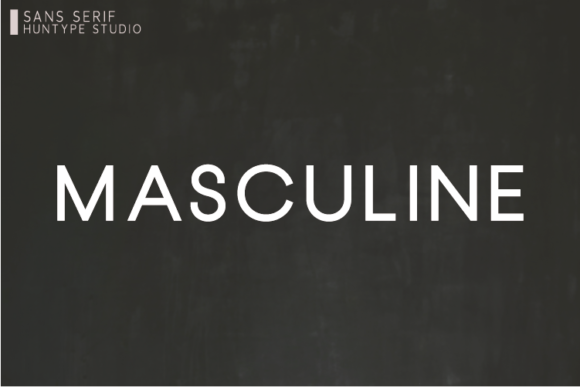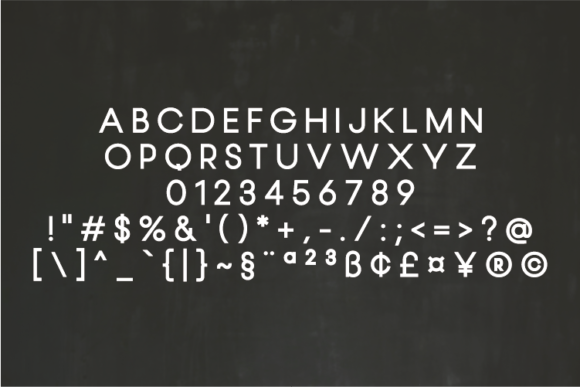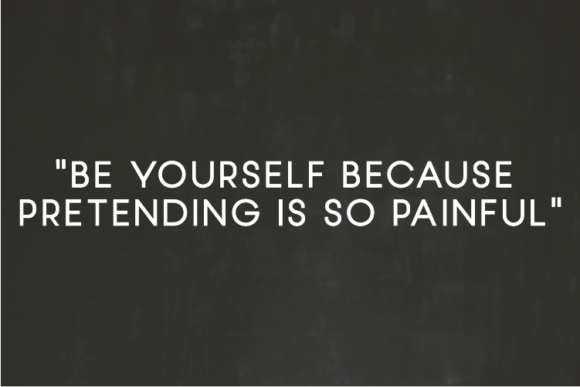
Masculine Font
About the Masculine Font
Elevate your designs with Masculine Font, a font that combines sophistication with readability. Masculine is an all-caps sans serif font that will impress you with its versatility. With smooth and clean lines and just a touch of contrast, this font works beautifully for logos, branding, and web headings.
Masculine’s strong, geometric forms make it ideal for headlines, short impactful statements, and branding projects requiring a sense of authority and modern sophistication. It excels in applications like logos, posters, and even packaging for high-end products. However, its all-caps nature and relatively high x-height make it less suitable for body text or long-form content; readability suffers in extended use.
Pairing Masculine effectively depends on the desired balance. For a bold, contemporary feel, consider pairing it with a clean sans-serif like Open Sans for body copy or a geometric sans-serif like Futura for a more structured look. To add a touch of contrast and warmth, a classic serif such as Garamond or a slightly more playful serif like Playfair Display could work well.
The overall personality of Masculine is confident and assertive, conveying a sense of strength and reliability. It’s a strong choice for brands aiming for a premium, masculine image, particularly in industries such as automotive, finance, or high-end menswear.
Masculine Font Usage Examples
Masculine Font Example